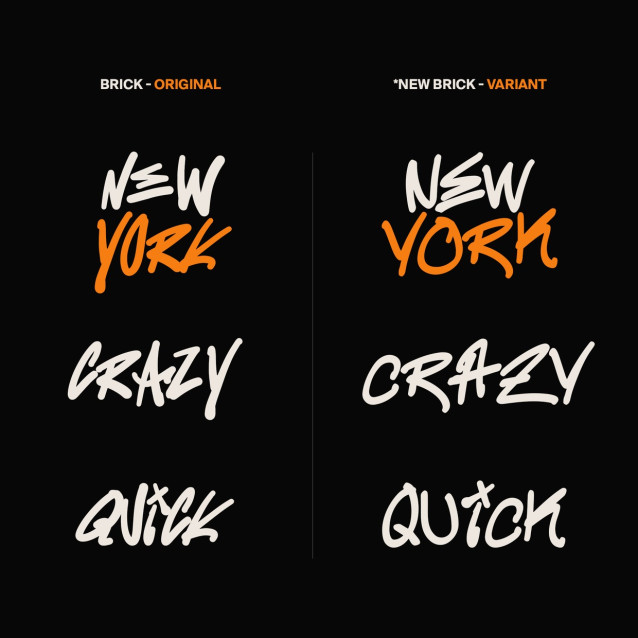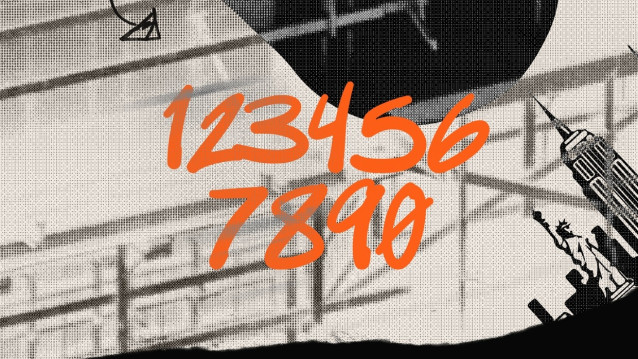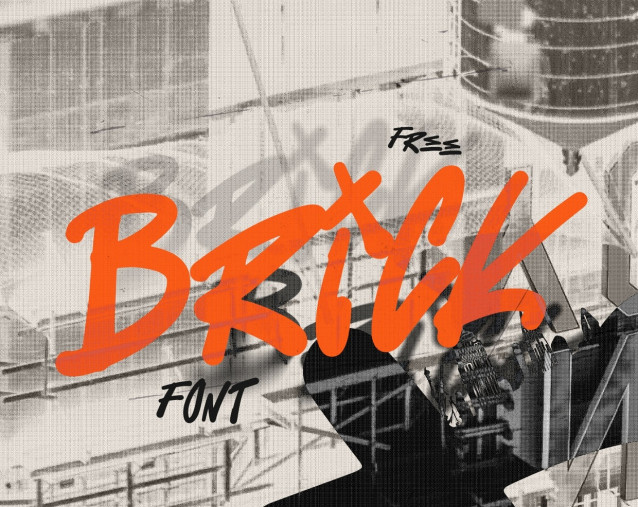
Brick Font
Brick Font is my newest hand-written font inspired by my 4 month work vacation in NYC. Walking the streets of the borrows I found the building tags and letter forms so inspiring.
I was never the biggest fan of hand-written typefaces because they always felt like this missed the mark slightly for me. Not saying I am the answer, but I really love my solution and I hope you get to enjoy it too!